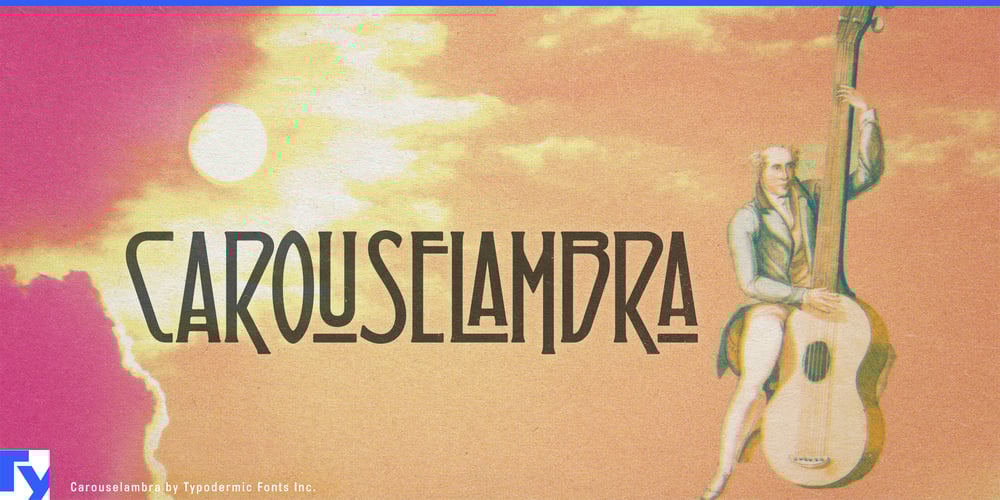
Carouselambra Font Family was designed by Ray Larabie and published by Typodermic. Carouselambra contains 1 styles and family package options. Step into a world of timeless elegance with Carouselambra, a typeface that weaves the intricate beauty of Art Nouveau with the raw energy of rock ‘n’ roll. Inspired by the iconic typography of Led Zeppelin’s “Houses of the Holy” album, this font transports you to an era where art and craftsmanship reigned supreme.Carouselambra’s letterforms are a delicate dance of curves and flourishes, each character a miniature masterpiece that beckons the eye to linger. Its interlocking design, reminiscent of wrought iron gates and stained glass windows, creates a mesmerizing visual rhythm that elevates any design from mundane to magical. But Carouselambra is more than just a pretty face. It’s a sophisticated typographic tool, harnessing the power of OpenType to offer designers unprecedented control. With standard ligatures that can be seamlessly integrated or expertly manipulated, this font allows for both effortless elegance and meticulous customization.Carouselambra’s linguistic versatility matches its visual flexibility. Fluent in a vast array of Latin-based European writing systems, it speaks the language of beauty from the misty highlands of Scotland to the sun-drenched piazzas of Italy. This expansive language support ensures that Carouselambra’s ornate charm can resonate across cultures and borders.Choose Carouselambra when you need typography that doesn’t just communicate, but transports. It’s perfect for designs that demand a touch of the extraordinary—vintage-inspired branding, luxurious packaging, or editorial layouts that yearn to be framed. With Carouselambra, every word becomes a work of art, every phrase a portal to an age of unparalleled craftsmanship and beauty.In a world of fleeting trends, Carouselambra stands as a testament to enduring style. It’s more than a font—it’s a typographic time machine, ready to infuse your designs with the timeless allure of Art Nouveau and the rebellious spirit of rock ‘n’ roll.